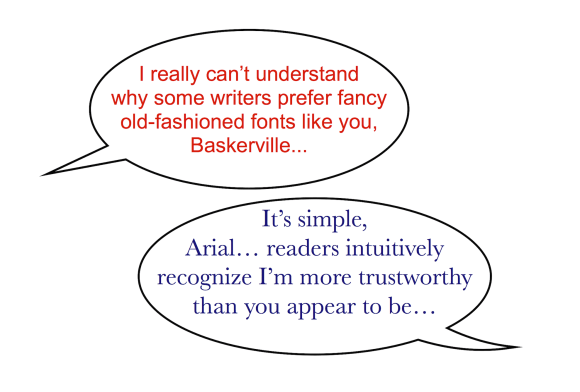
Fonts that Can Make Your Literary Dreams Come True
Would you be interested in owning a copy of an attractive new font called Middle Earth? If so, read on and you’ll find a link to download this typeface created by Swedish designer Måns Grebäck.
When it comes to fonts, there are basically two types of people – those who pay no attention to them as they read, and others who notice the nuances between similar fonts and are fascinated by extraordinary examples.
Longtime readers of Mere Inkling know I am in the latter category. Every year or two I actually write on the subject. I’ve discussed monastic fonts, legal fonts, trustworthy fonts, uninhibited fonts, a dyslexia font, a memory-enhancing font, fonts based on the handwriting of historical figures, and being a fontaholic.
The reason for my current interest in fonts is due to Microsoft’s decision to jettison Calibri as their default font for Office products. They needed to make room for its replacement, Aptos. Seriously, when you view the two sans serif* fonts, side-by-side, you may be surprised at how little they differ.
To make matters even more confusing, CNBC describes a curious aspect of Aptos saga.
Aptos will remain available in the font list under the old Bierstadt name for people who are accustomed to it. Users can also choose to set any other font as the default.
Apple’s mac computers also allow users to choose their own defaults. One typography community discusses this selection opportunity, even as they bemoan the fact that in many programs, the standard installations include suboptimal fonts.
Unfortunately, many of us work on computers where we have no control over what fonts are loaded onto the machine, so we have created a list of the top 10 most common system fonts everyone should know and how to handle them.
This website offers a brief description and history of ten of the most common fonts we typically encounter. For example:
Times New Roman is a serif typeface designed by Stanley Morison and Victor Lardent in 1931. It was commissioned by the British newspaper The Times, which wanted a new typeface to replace its existing font, Times Old Roman.
And I love their estimation of Comic Sans, one of my wife’s favorite fonts, which I avoid like the proverbial plague. (Delores is a young at heart special education teacher, and I’m more of a Lewisian dinosaur.)
Do use: if you are designing a comic for 6-year-olds.
Don’t use: if you want to be taken seriously by work colleagues.
Another pastor, who learned this lesson the hard way, shared his advice with the warning: “pastors don’t let your bulletins print out in Comic Sans!”
Apparently, his astute wife preserved his professional reputation by telling him to (1) avoid using a “smorgasbord of fonts” in a single document, and (2) “resist the temptation to print serious things in less than serious fonts.”
Advice for Writers
While authors have little control over the fonts in which their work is published by commercial publishers, they do have freedom to choose the typeface they use for the actual composition. “How To Choose the Best Font for Your Writing” addresses that latitude in the following way.
Do you have a favorite font? Are you dedicated to Times New Roman, or are you more of an “anything-but-Wingdings” kind of writer? Maybe you haven’t given your choice of font much thought.
Quite simply, as research shows, texts that look good make you feel good while interacting with them. This is why it’s so important to choose a font that not only is easy to read, optimizes line length, and has the right mood, but also is one that you like!
MasterClass describes the various aspects of each font that will contribute to your overall impression of each font. In “Typography for Writers: How to Pick the Best Type for Writing,” they explain the significance of bowls, ascenders, spines, counters, and more.
Typographers and type designers have their own universe of special terms, each of which refers to a specific part of a given letter. Understanding these basic elements of typography can help you decide precisely what typographic style you want to employ to grab your reader’s attention.
InDesignSkills goes so far as to match a number of typefaces to specific genres, saying “we judged the legibility, beauty, simplicity and variety of weights available of a huge range of fonts, and whittled them down to these faithful five.” They even offer an ironclad promise, proclaiming their selection will “never let your typesetting down, guaranteed.”
Obviously, personal tastes play a large role in appreciating or disapproving of various fonts. One author describes how the quest for the perfect font is integral to writers’ creativity.
Let’s talk about one of our favourite writing avoidance devices: picking the right font for your manuscript.
“The Best and Worst Fonts (and why they’re good or bad),” describes the bond a writer can develop with their typographic fancies.